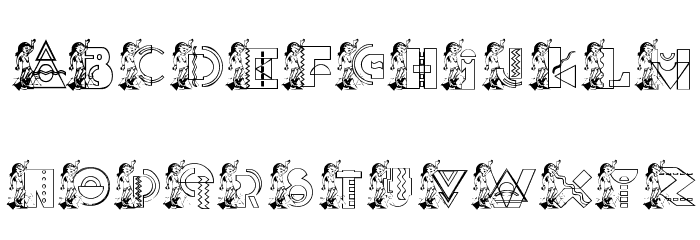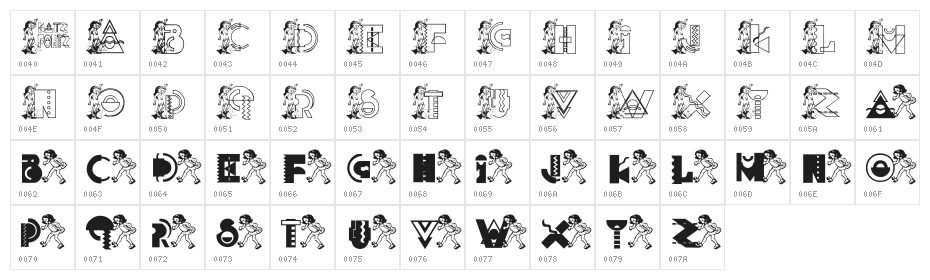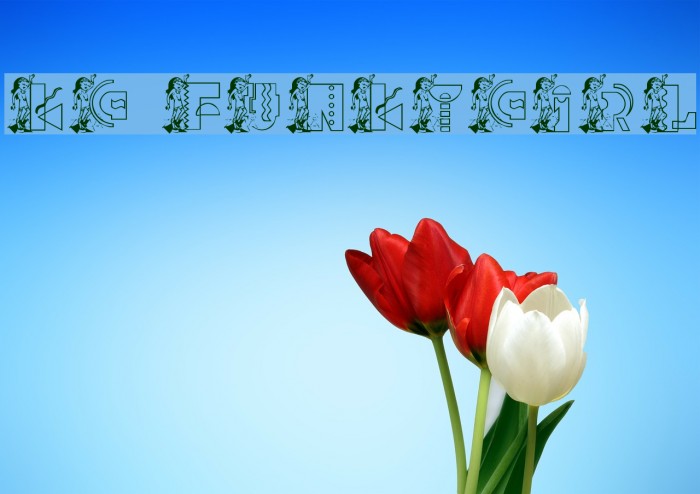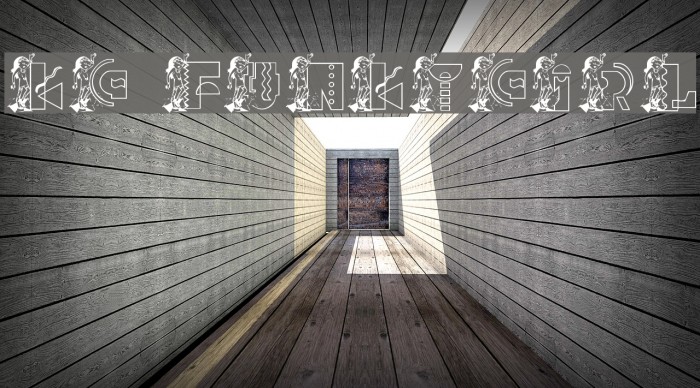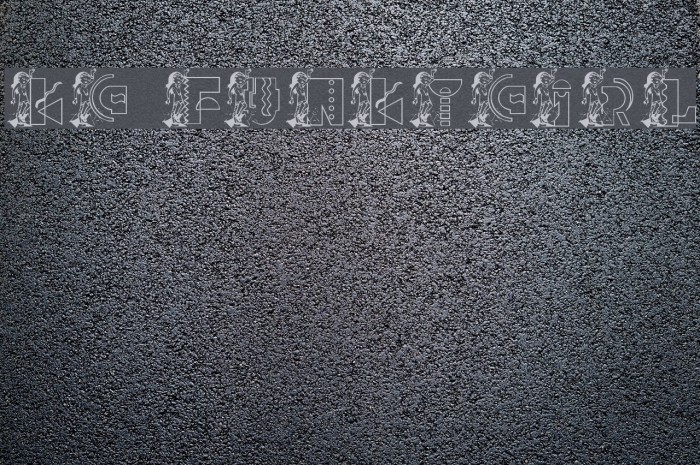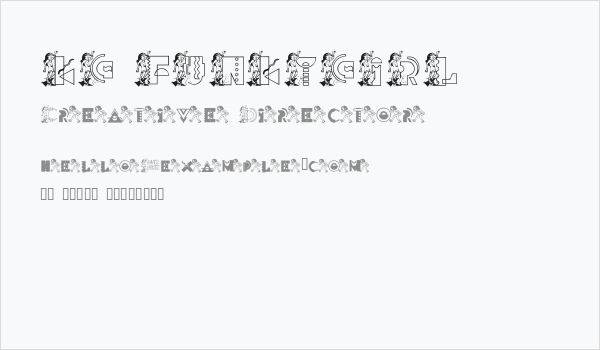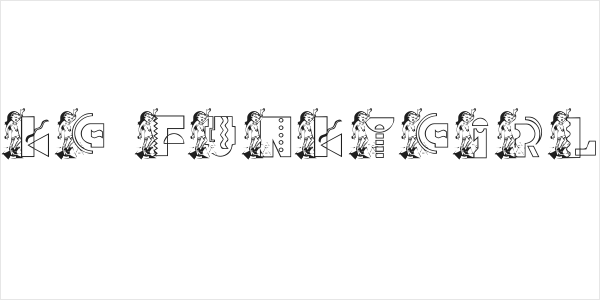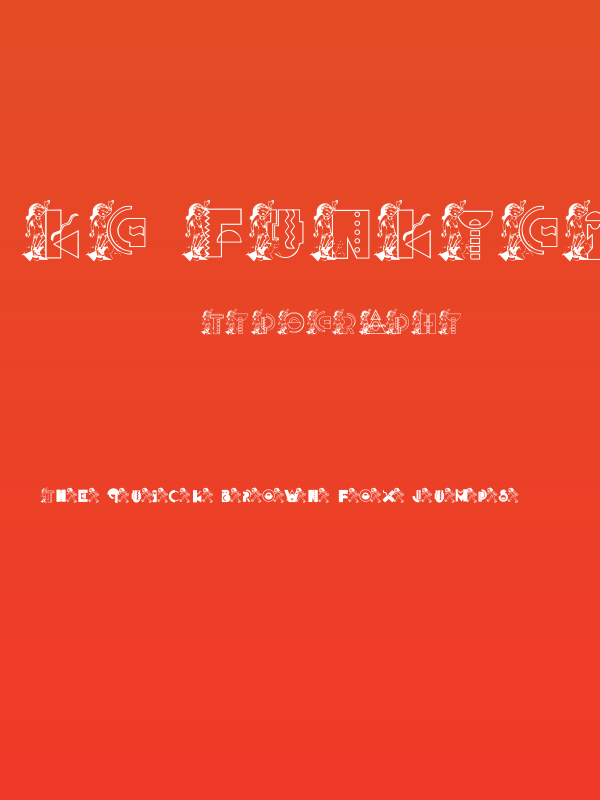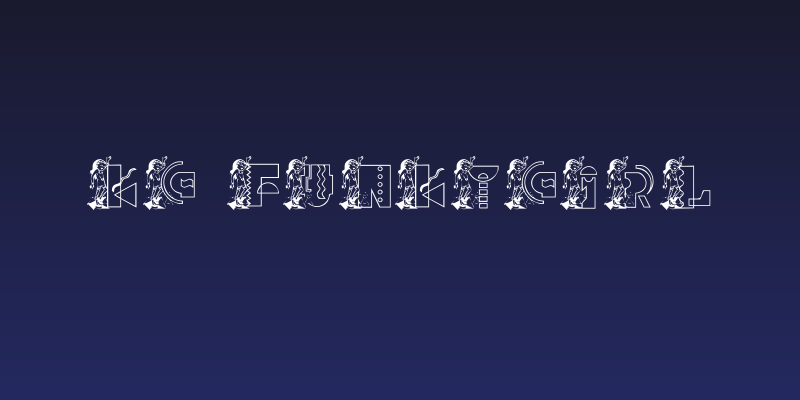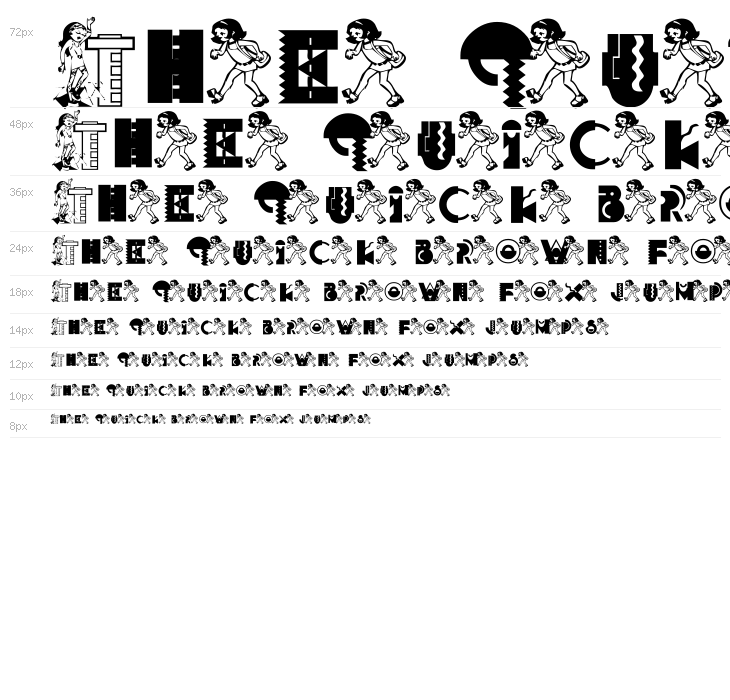
KG FUNKYGIRL Font
KG FUNKYGIRL Description
This font features a playful and whimsical design, incorporating cartoon-like characters integrated into each letter. The letters are bold and decorative, with intricate patterns and figures that add a sense of fun and creativity. The uppercase and lowercase letters maintain a consistent style, with each character uniquely styled to include elements of humor and artistic flair. The numbers and special characters follow the same playful theme, making this font ideal for projects that require a lively and engaging aesthetic. The overall design is highly decorative, making it suitable for eye-catching headlines or creative projects.
KG-FUNKYGIRL UPPERCASE
KG-FUNKYGIRL LOWERCASE
KG-FUNKYGIRL OTHER CHARS
| Proposed Projects | Ideal for children's book covers, playful posters, party invitations, and creative branding projects. |